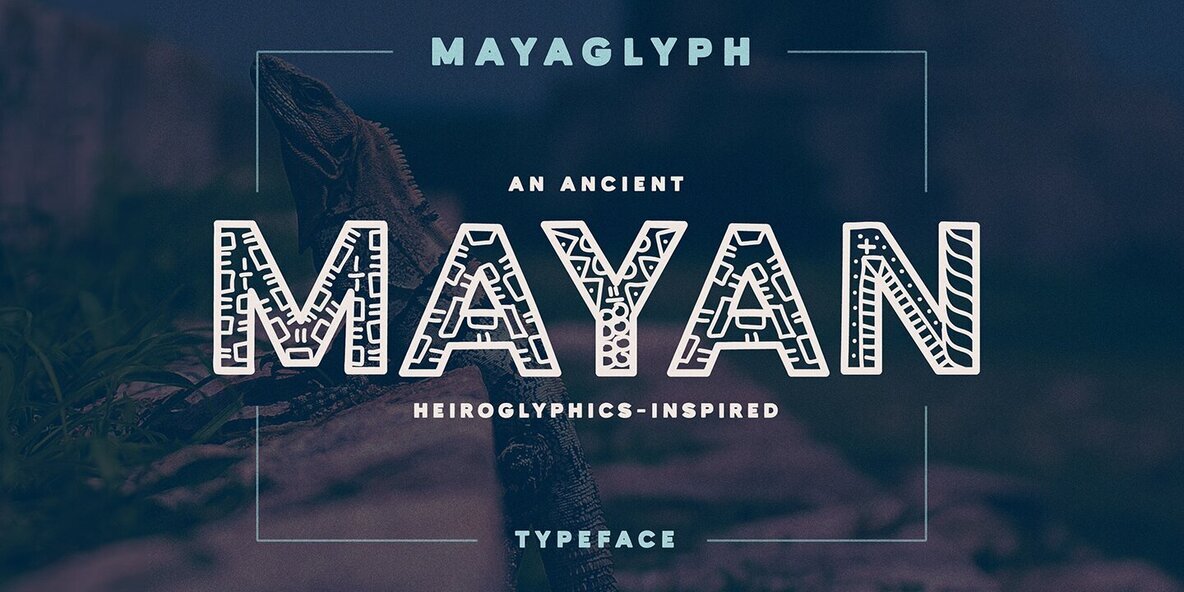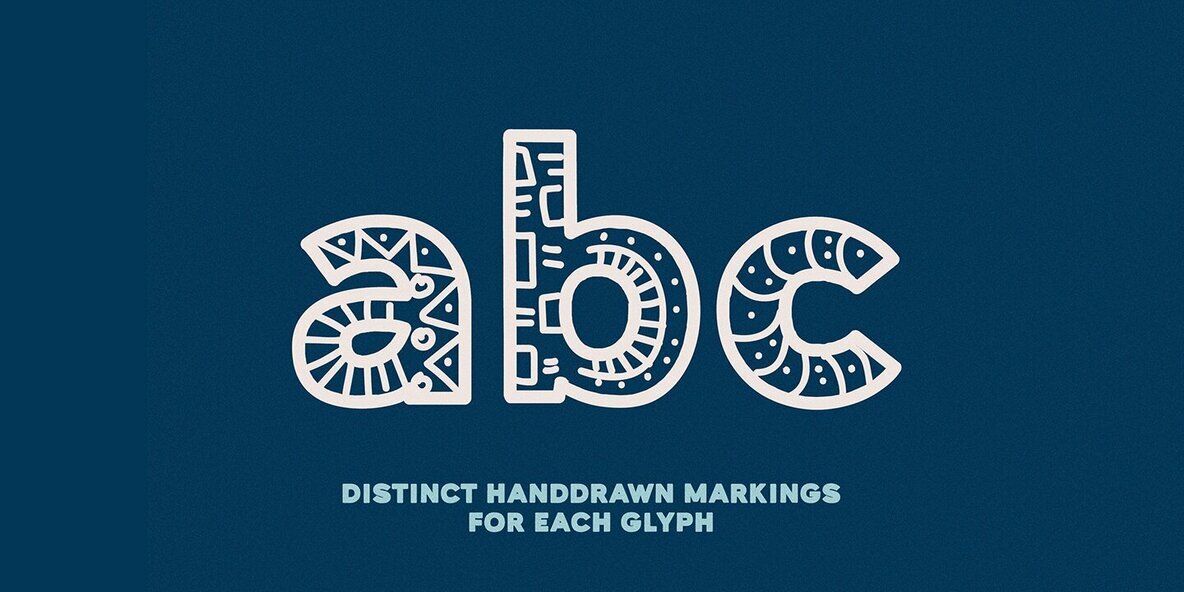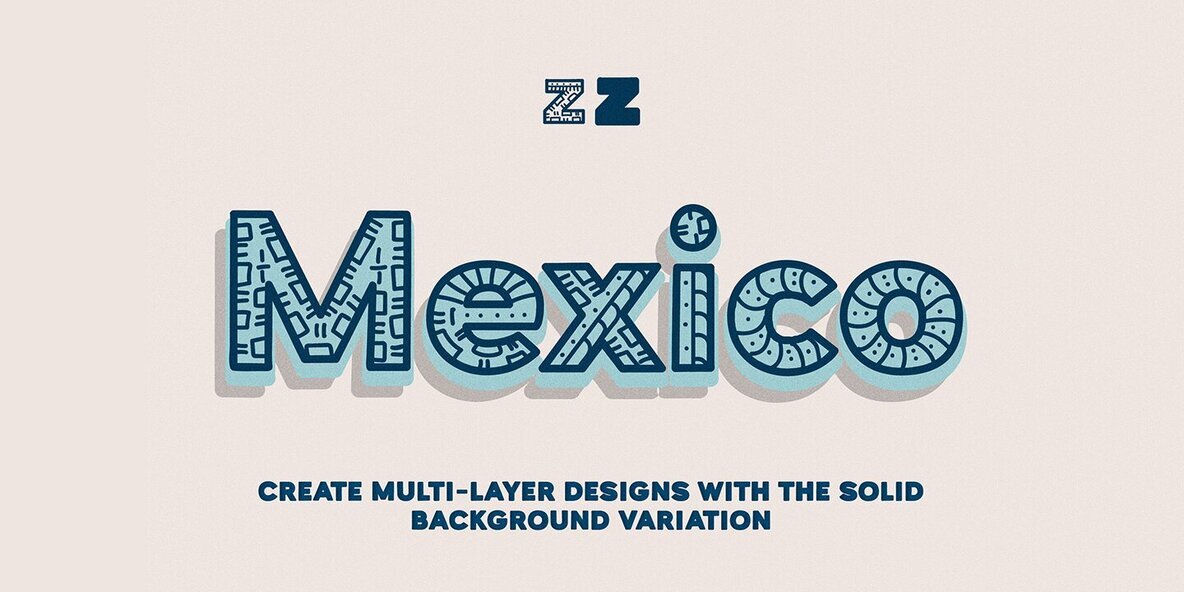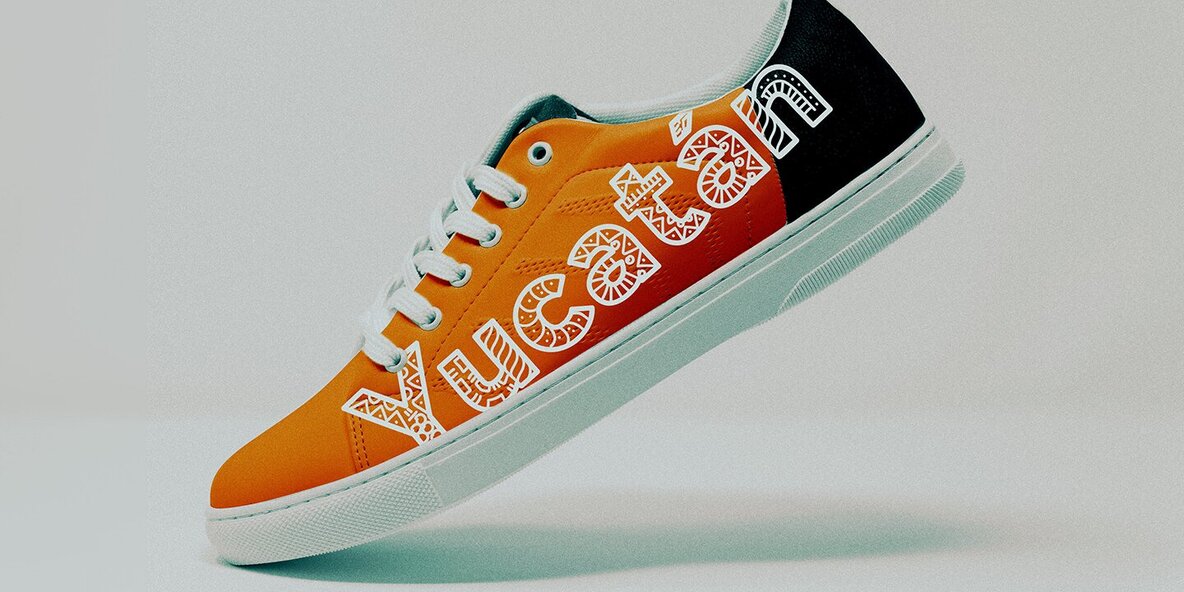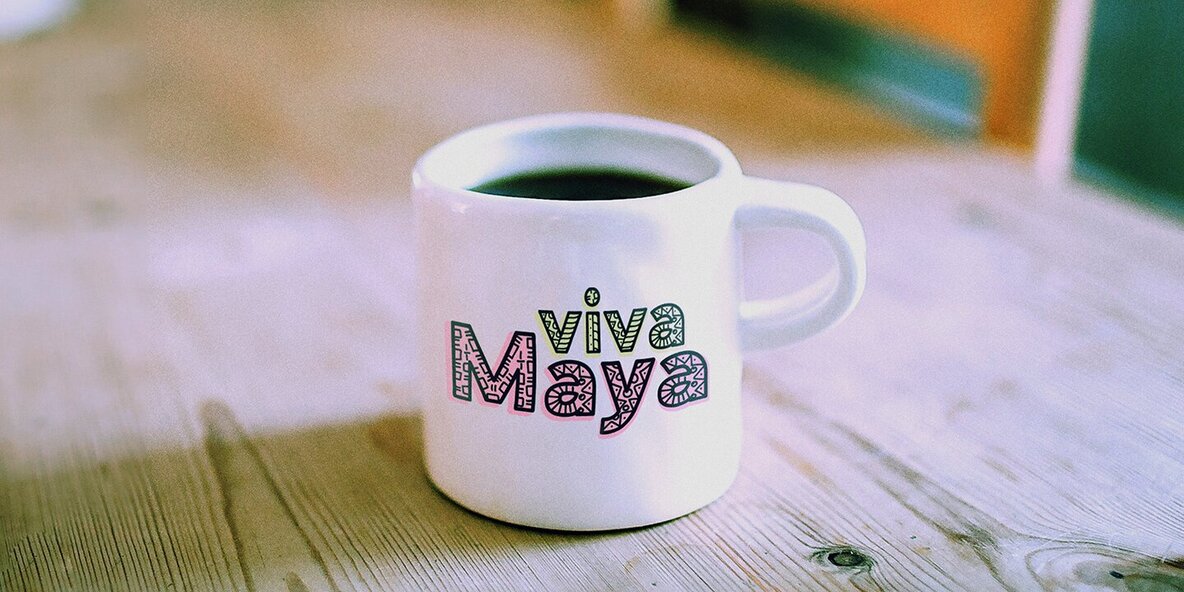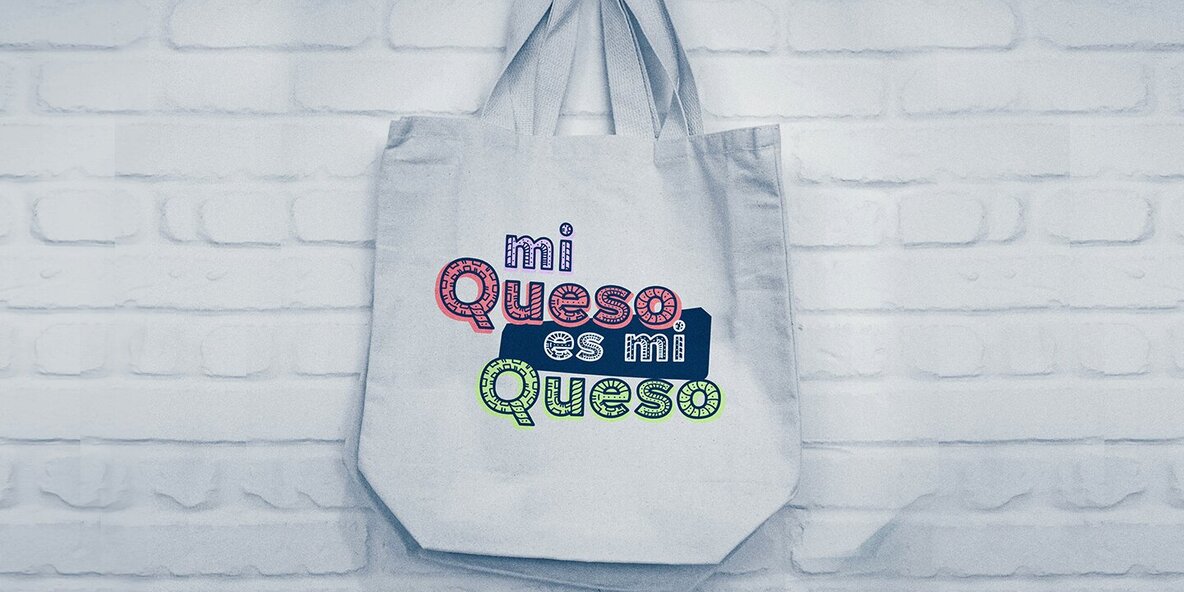
Mayaglyph Font
Mayaglyph offers a unique journey into the world of typography, echoing the ancient artistry of Mayan hieroglyphics. Each character is painstakingly hand-drawn, ensuring that every stroke carries the essence of its historical inspiration. This attention to detail extends to include diacritic marks and symbols, providing a versatile palette for designers. Mayaglyph's charm lies in its intentionally imperfect characters, reminiscent of carvings straight from a timeless stone surface. Its solid background version is perfect for layered designs, offering an aesthetically pleasing depth.Mayaglyph: A Typeface Drawing from the Past